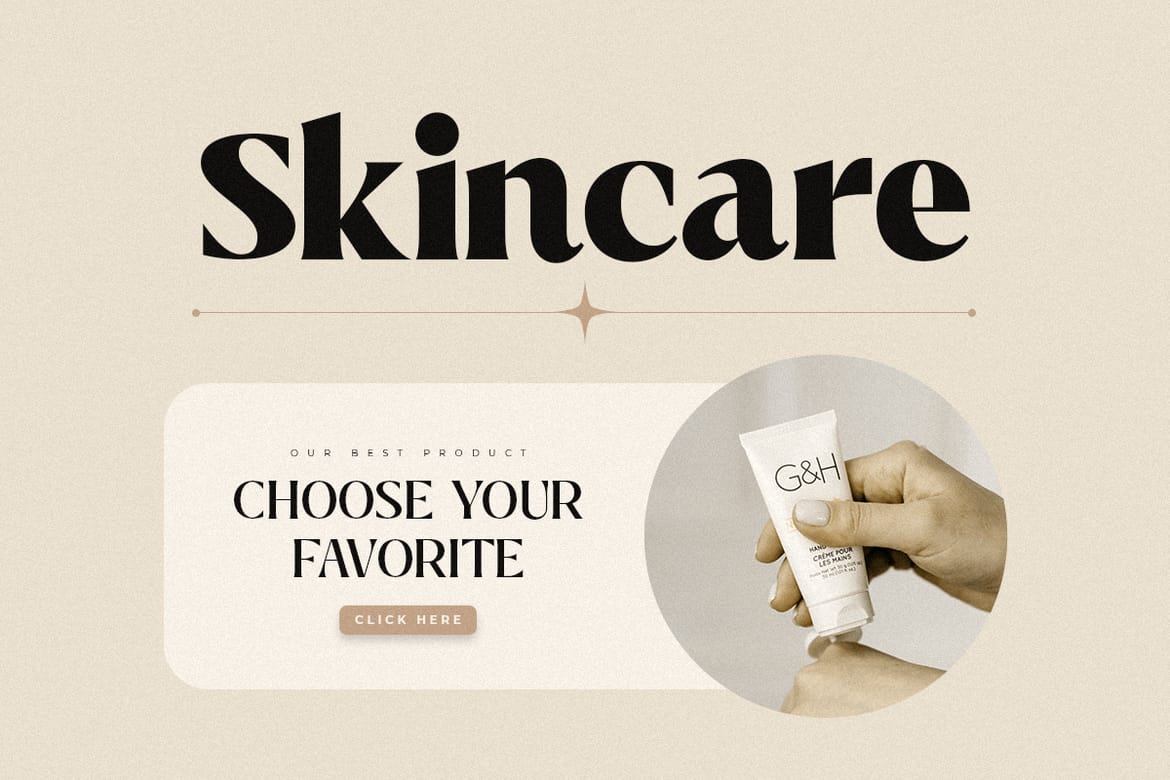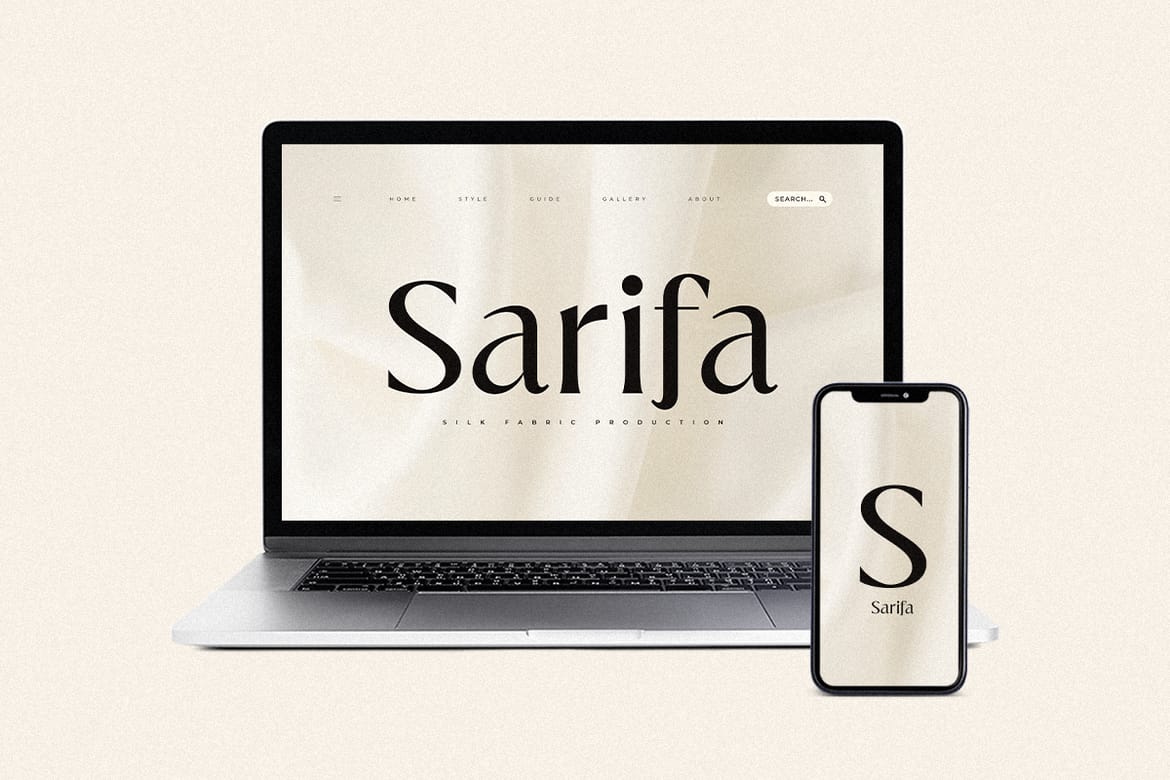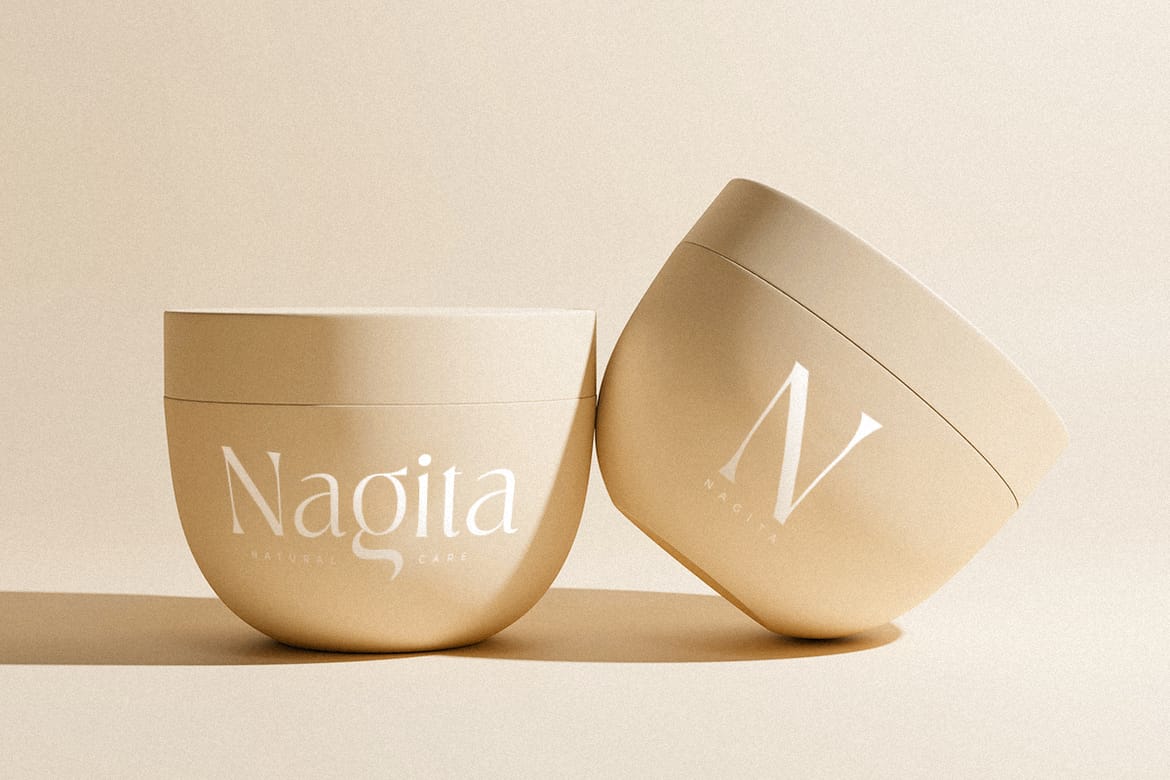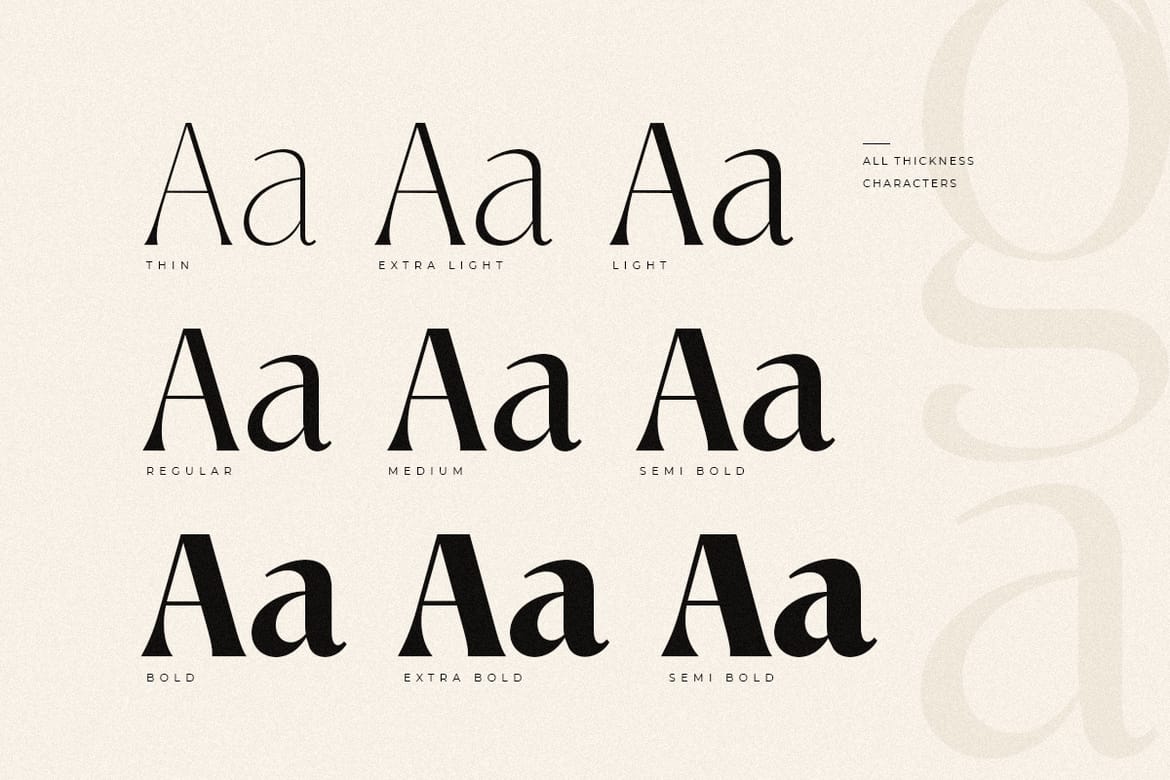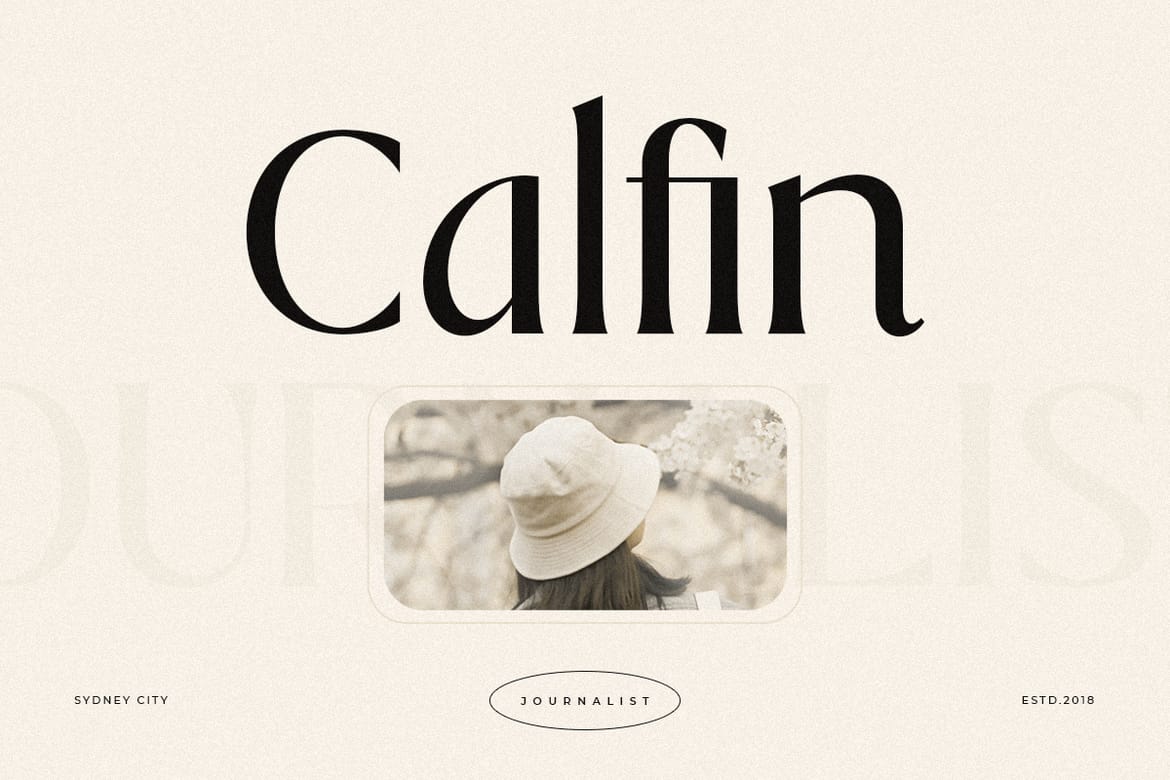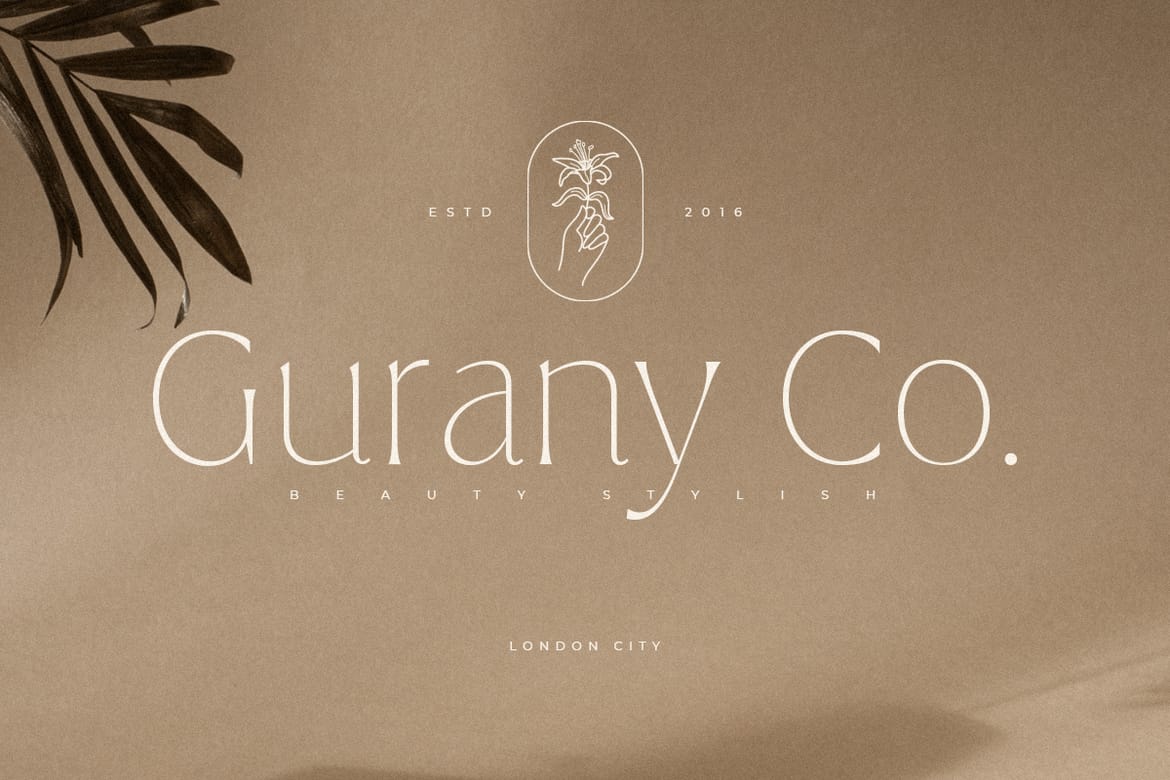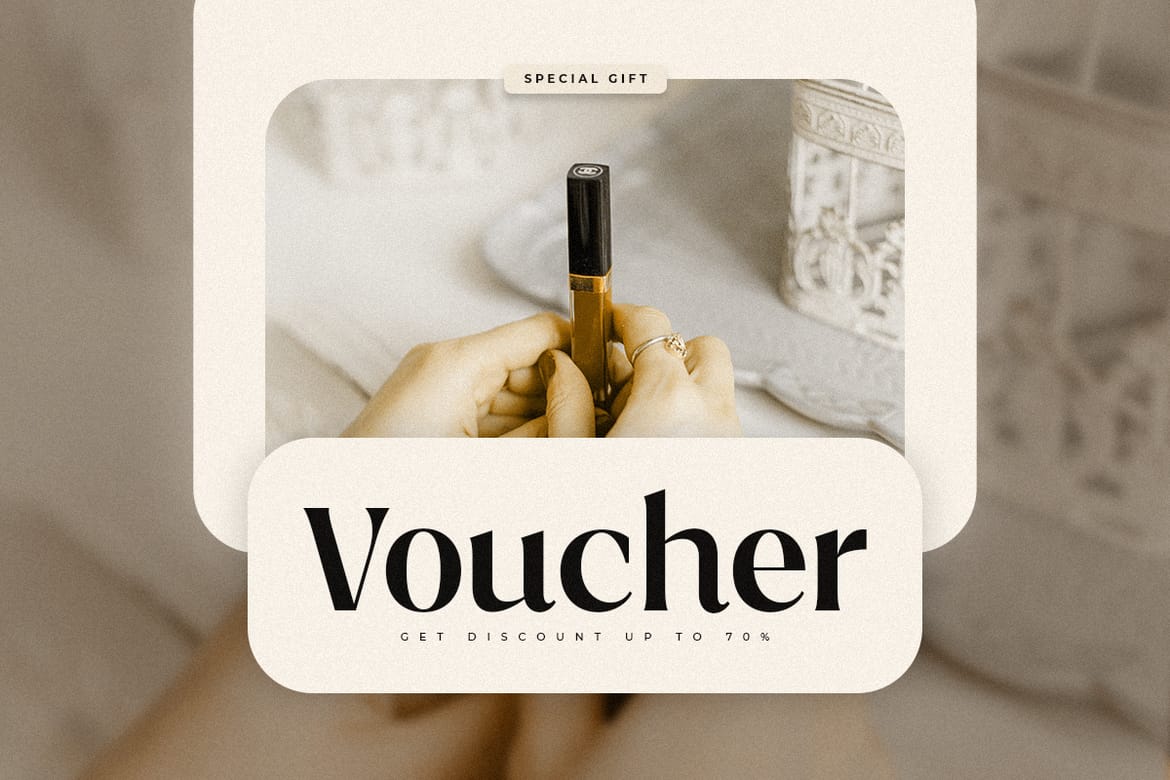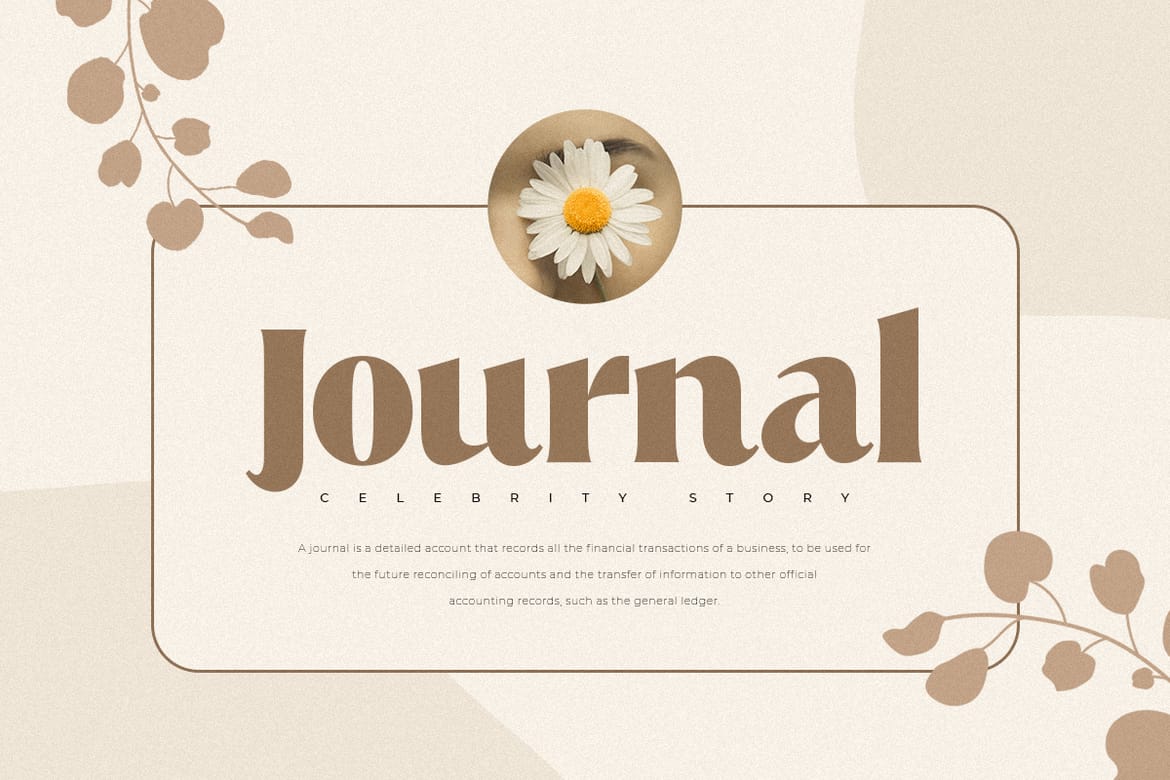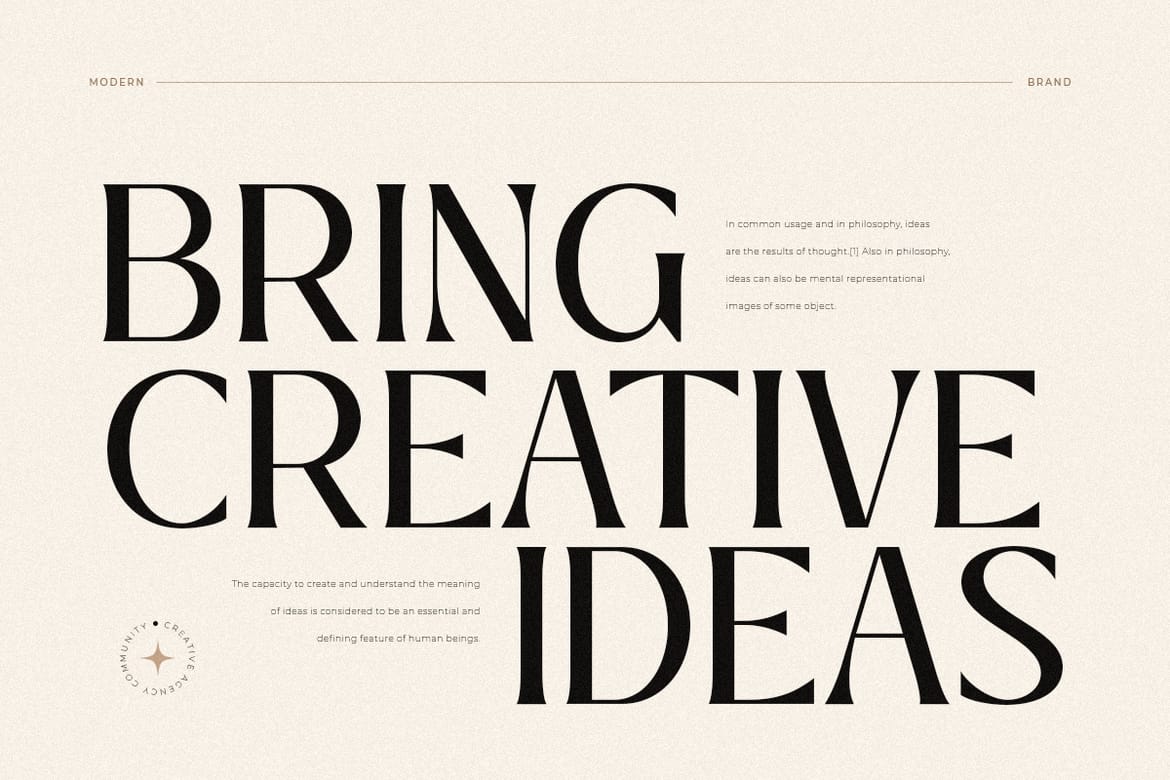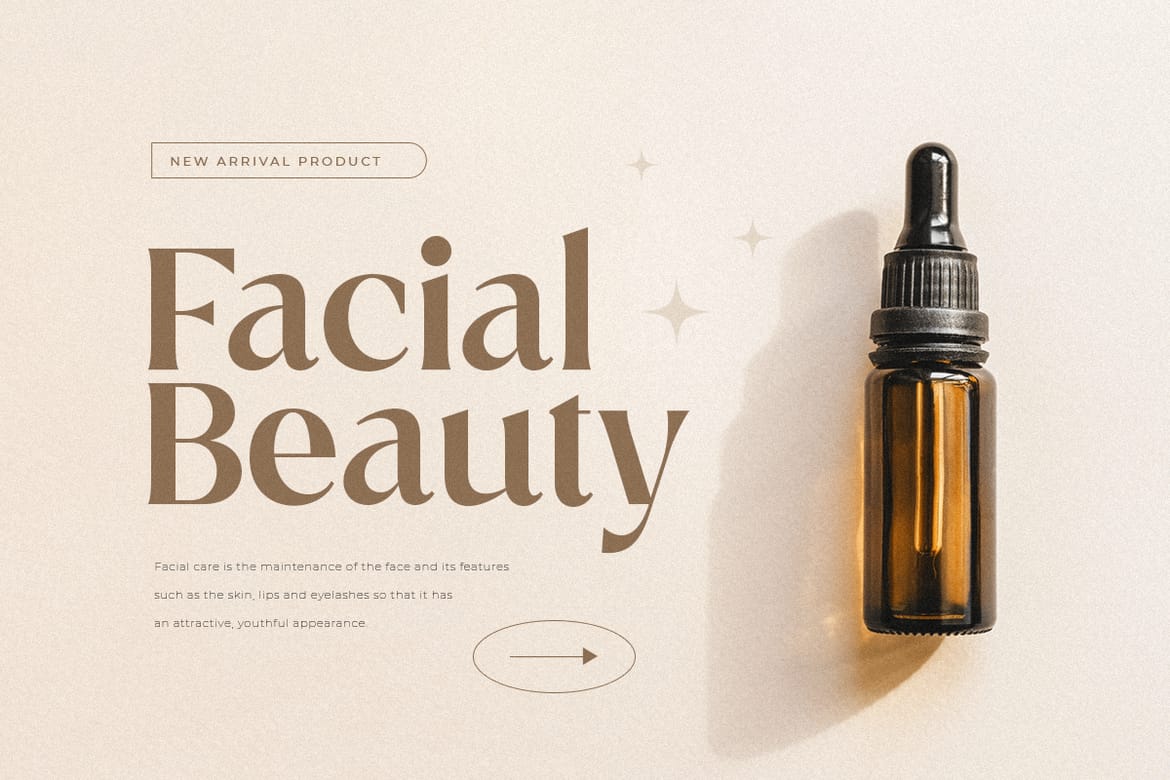
Manila font is a modern Elegant Serif font with a Elegant, fancy, playful, unique, and versatile vintage sans serif that you can combine to get a beautiful typography. It is a Serif font with moderate contrast that perfect for branding projects, logo, wedding designs, social media posts, advertisements, product packaging, product designs, label, photography, watermark, invitation, stationery, and any projects, it makes with a high level of legibility.
Character set A-Z
Alternative Uppercase & Lowercase
Numerals & Punctuation
Accented Characters (West Europe)
- 9 font weights included
- Elegant branding serif font